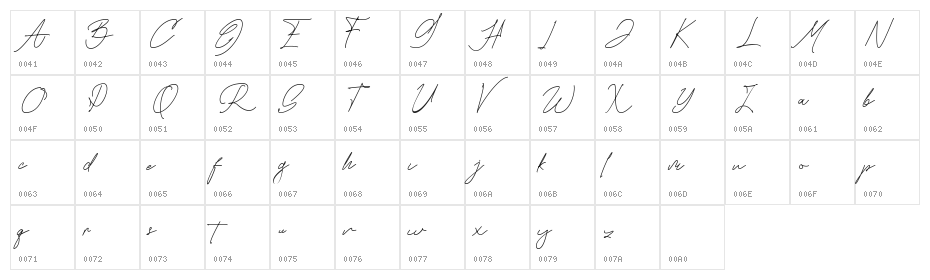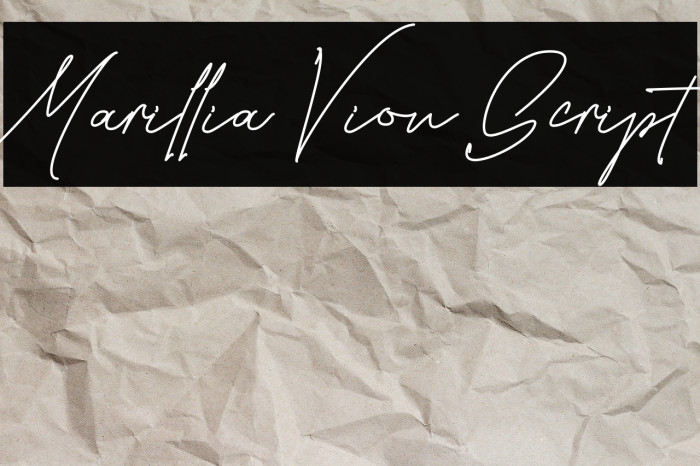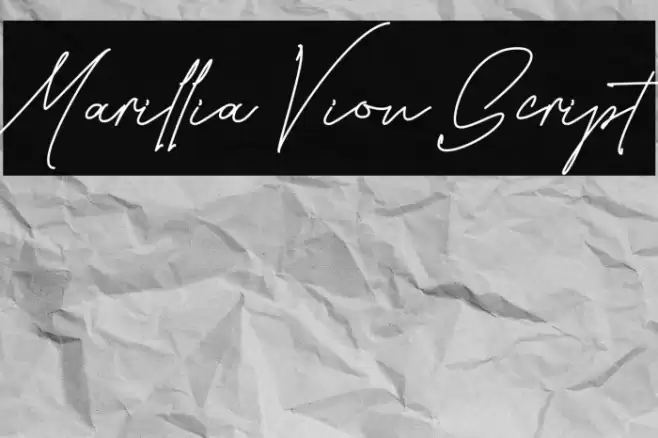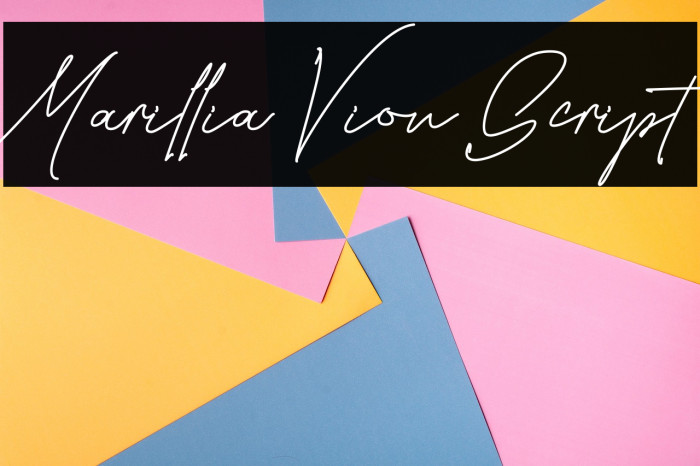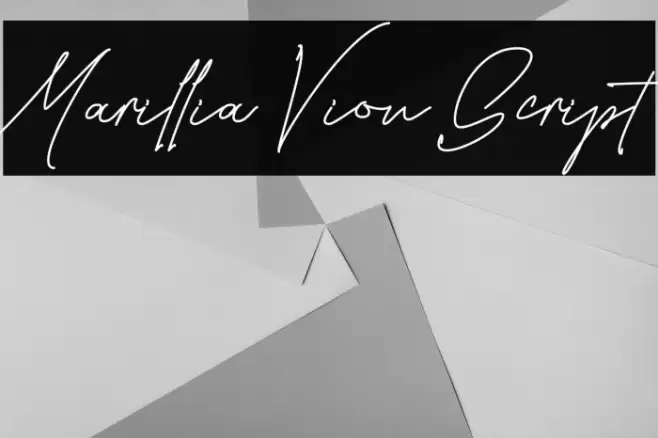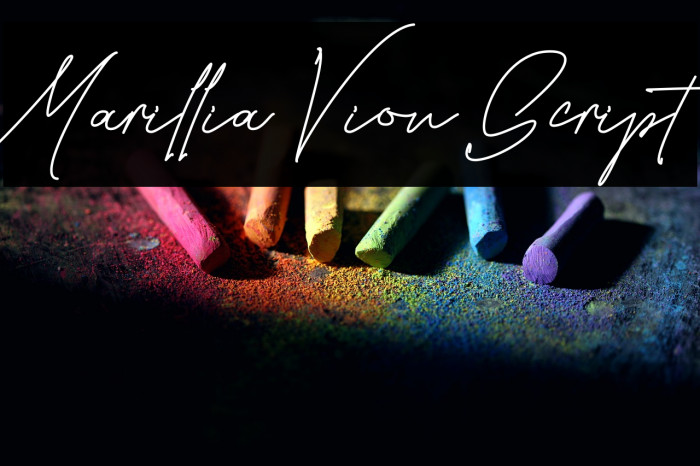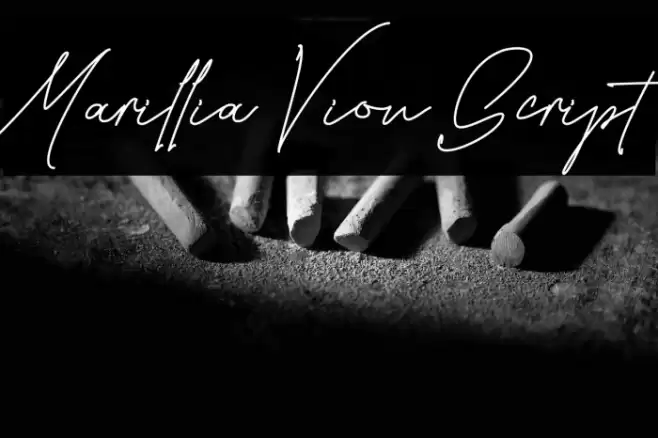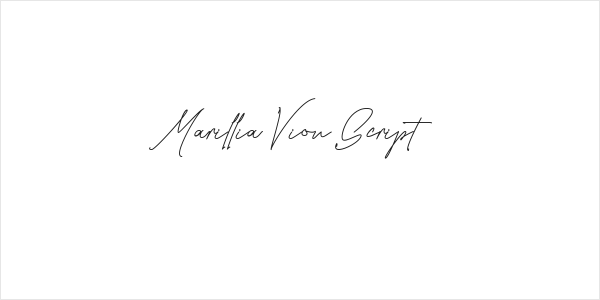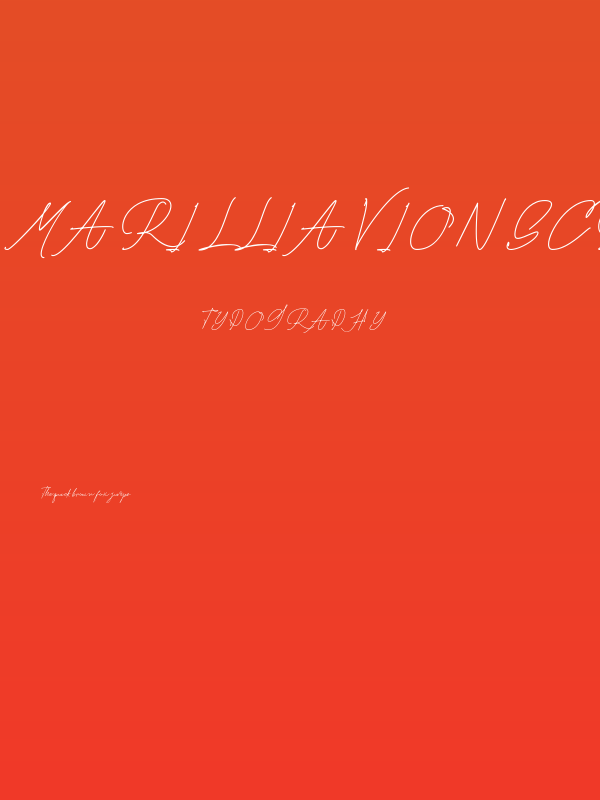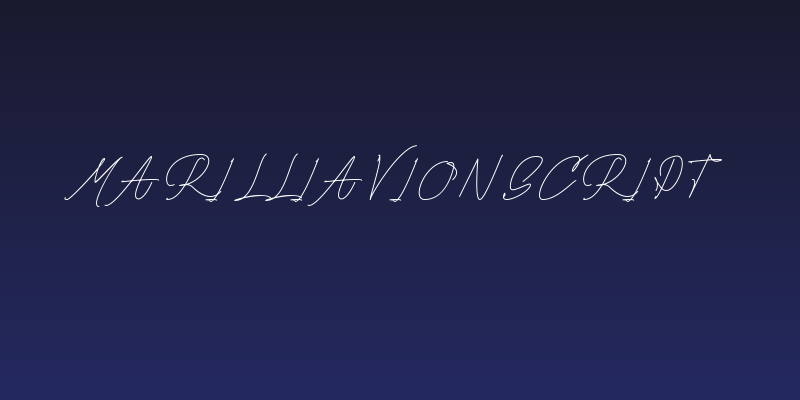
Marillia Vion Script Font
Marillia Vion Script Description
This elegant script font features a delicate and flowing design, characterized by its smooth, continuous strokes that mimic the fluidity of natural handwriting. The uppercase letters are gracefully elongated, with subtle loops and curves that add a touch of sophistication. The lowercase letters maintain a consistent style, with gentle connections between each character, creating a harmonious and cohesive look. The font's overall appearance is both refined and approachable, making it suitable for a variety of design applications. Its thin lines and graceful curves lend an air of elegance and charm, perfect for projects that require a personal and artistic touch.